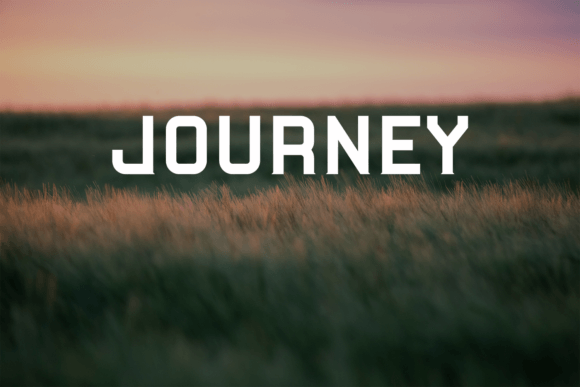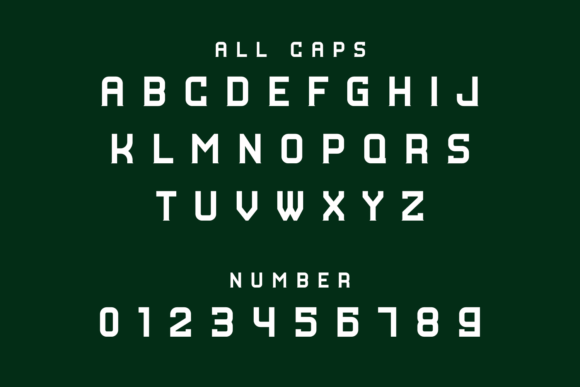
Unlocking Creative Potential with Himpla Font
Have you ever found yourself stuck in a creative rut, scrolling through your font library, searching for that one perfect font to bring your design project to life? For many designers, this is a familiar scenario. But what if you stumbled upon a font that not only solved your design dilemma but also elevated your entire creative process? Enter the Himpla Font, a cool and unique display font that’s sure to become your go-to design resource.
What sets Himpla Font apart is its meticulous craftsmanship and high level of detail. Whether you’re working on a free download project or a high-quality design piece, this font is sure to impress. With its transparent background and sleek design, Himpla Font is the perfect addition to any font library. And the best part? Its versatility makes it an ideal choice for a wide range of creative projects, from digital art to print designs.
Key Features of Himpla Font
- High-quality, professional design for creative projects, ideal as a design resource.
- Unique, modern design aesthetic, perfect for modern creative projects, branding, and marketing materials.
Honest Review: Himpla Font
As a designer, I’m always on the lookout for high-quality design resources to elevate my creative projects. Recently, I stumbled upon the Himpla Font, and I’m excited to share my thoughts on this new addition to my design arsenal.
- ✨ The font’s clean and modern design makes it perfect for a variety of creative projects, from brochures to websites.
- ✨ The transparent background allows for seamless integration with any design element, giving me more flexibility in my design process.
- ⚠️ The font may not be suitable for projects that require a more ornate or dramatic feel, as it’s quite minimalist.
- ⚠️ Some users may find the font’s simplicity too generic, which could lead to design fatigue.
Overall, I’m impressed with the Himpla Font. While it may not be perfect for every design project, its high quality and versatility make it a valuable addition to my design resource library. If you’re looking for a clean and modern font, I’d definitely recommend giving it a try.
Tips for Getting the Most Out of Himpla Font
When using the Himpla Font, be sure to experiment with different font sizes and styles to find the best combination for your project. Additionally, consider using the font in conjunction with other design elements, such as graphics and images, to create a cohesive and visually appealing design.
Common Use Cases for Himpla Font
The Himpla Font is a versatile design resource that can be used in a variety of applications, including logos, graphics, and documents. It is particularly well-suited for use in creative projects that require a high-quality, professional-looking font with a transparent background.